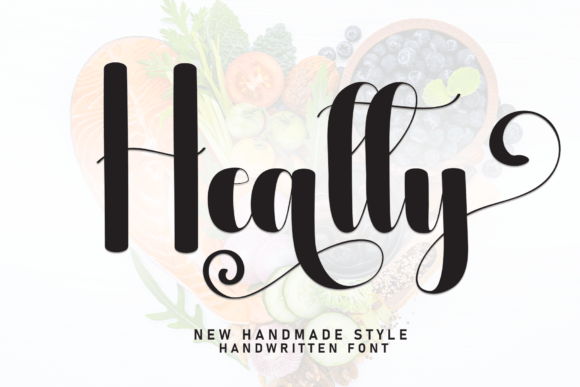
Introducing Healty Font: The Perfect Handwritten Font for Your Creative Projects
Are you a designer, crafter, or DIY enthusiast looking for a font that can add a friendly and lovely touch to your projects? Look no further than Healty Font, a beautiful handwritten font designed to bring a personal and approachable feel to your creations. In this article, we’ll explore the features and benefits of Healty Font, and show you how it can elevate your designs and make them stand out.
What is Healty Font?
Healty Font is a carefully crafted handwritten font that exudes warmth and friendliness. Its unique and lovely style makes it perfect for a wide range of applications, from diary planners and journals to wedding invitations, party decorations, and social media posts. With Healty Font, you can add a personal touch to your projects and make them more engaging and relatable.
Perfect for Everyday Use
Healty Font is designed to be versatile and easy to use, making it perfect for everyday projects. Whether you’re creating a diary planner, journal, or greeting card, Healty Font is the ideal choice. Its friendly and approachable style makes it easy to connect with your audience and add a personal touch to your designs.
Ideal for Creative Projects
Healty Font is not just limited to everyday use; it’s also perfect for creative projects such as:
- Back to school projects: Add a personal touch to your school-themed designs with Healty Font.
- Weddings and parties: Use Healty Font to create beautiful wedding invitations, party decorations, and more.
- Festivals and events: Healty Font is perfect for creating posters, flyers, and social media posts for festivals and events.
- Blogs and social media: Add a friendly and approachable touch to your blog posts and social media updates with Healty Font.
- Clothing and child-related designs: Healty Font is perfect for creating cute and playful designs for kids’ clothing and accessories.
Encoded PUA Character for Easy Use
Benefits of Using Healty Font
By using Healty Font in your projects, you can:
- Add a personal and friendly touch to your designs
- Create unique and engaging projects that stand out
- Enhance your brand’s personality and tone
Healty Font is a beautiful and versatile handwritten font that’s perfect for designers, crafters, and DIY enthusiasts. With its friendly and lovely style, Healty Font can add a personal touch to your projects and make them stand out. Whether you’re creating everyday designs or working on a creative project, Healty Font is the ideal choice. Download Healty Font today and bring your DIY projects to life!